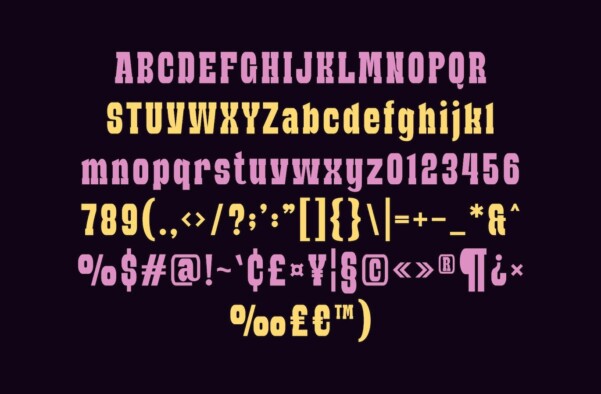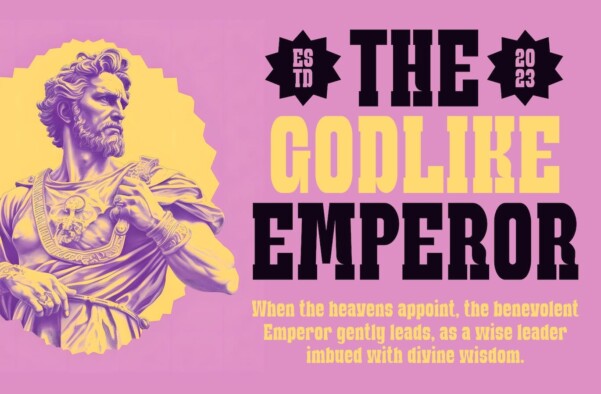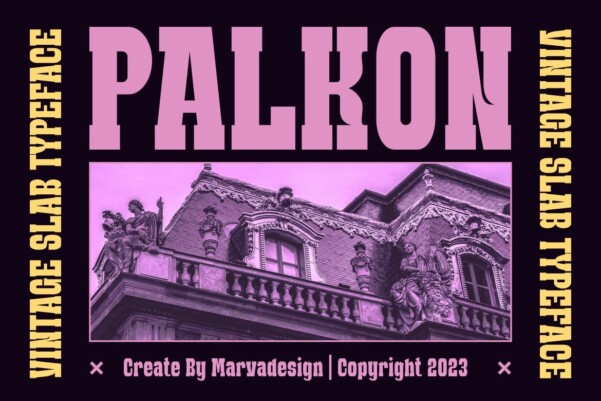
Palkon Font
Palkon Font – Police authentic Classic Slab Font display. The font is suitable for any branding project such as Logo, Template Design, Product and many more. It is remarkable in a wide range of contexts